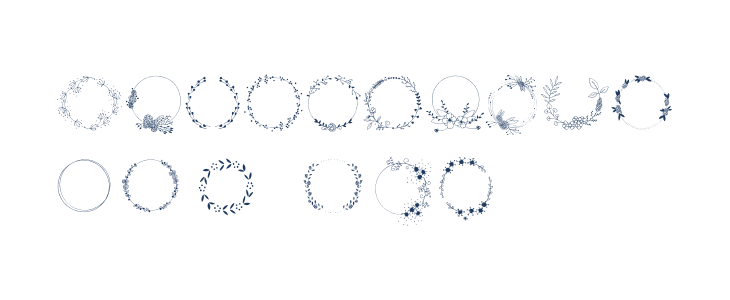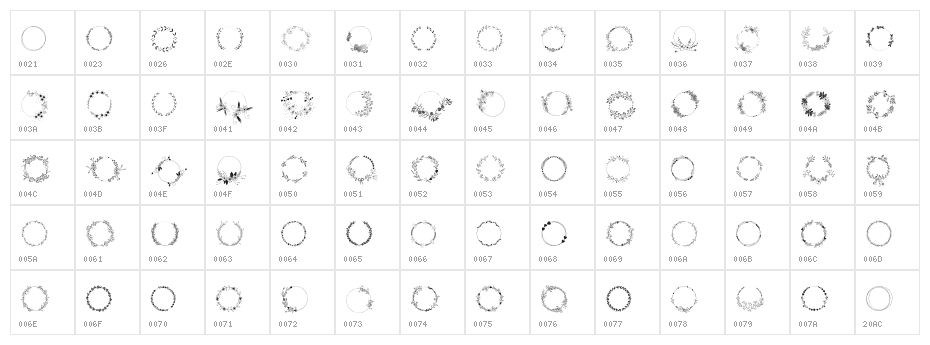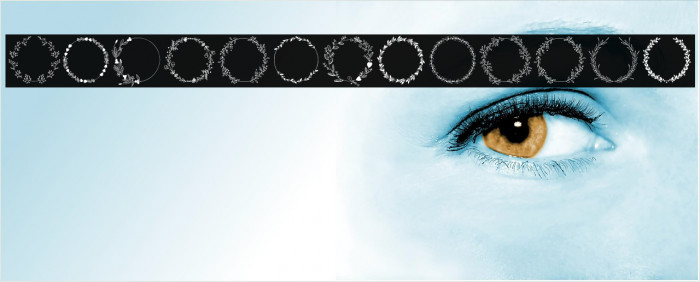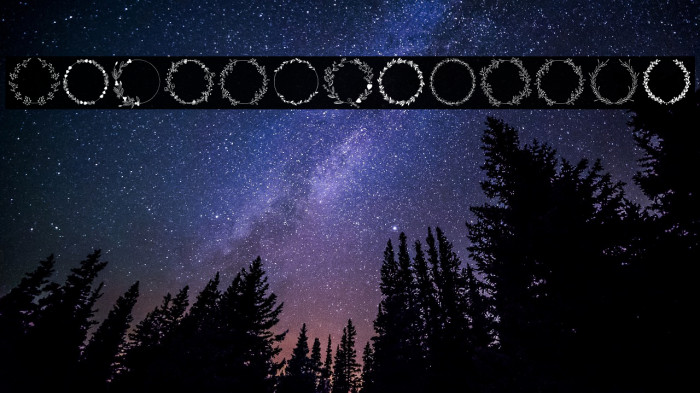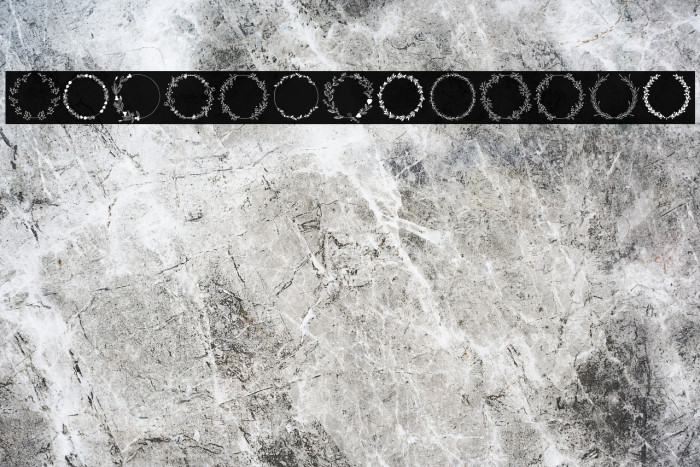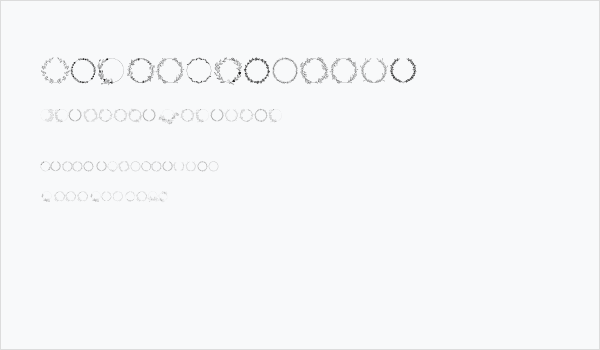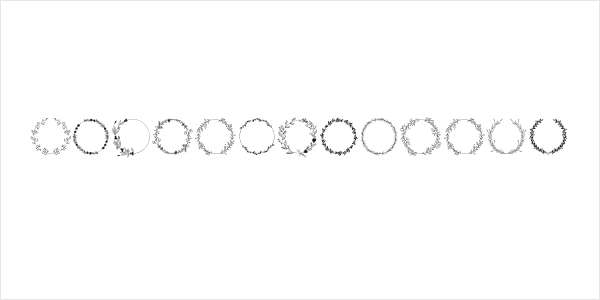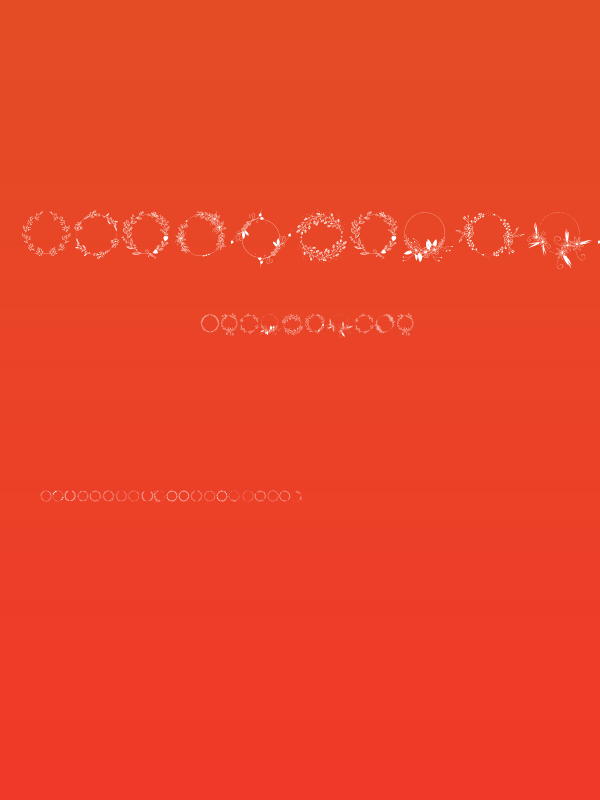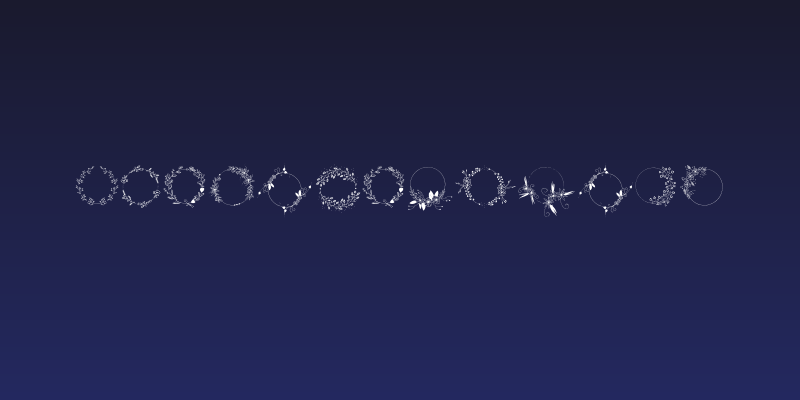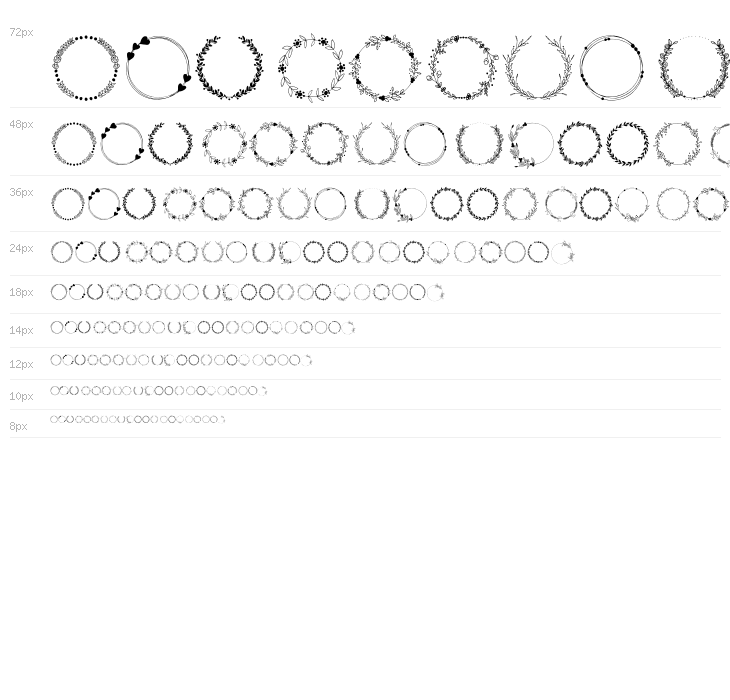
SpringRomance Font
A decorative collection of hand-drawn circular floral and botanical wreaths, each featuring unique arrangements of leaves, flowers, and branches with delicate, organic linework and varying levels of detail.
| Overall Style | Decorative, Hand-drawn, Botanical |
| Use Case | Logos, Decorative elements, Invitations, Stationery |
| Proposed Projects | Wedding invitations, greeting cards, branding, packaging, seasonal decor, social media graphics. |